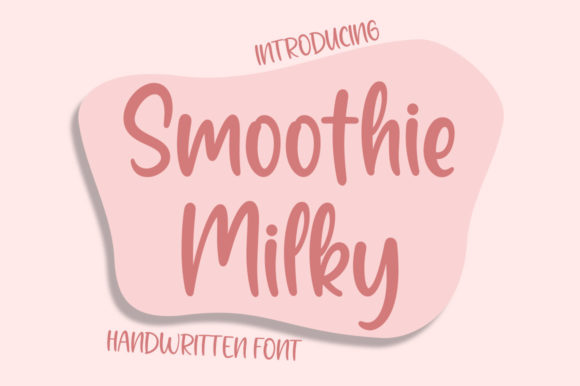
Welcome to the realm of Smoothie Milky Font, a delightful script font brimming with whimsical charm and undeniable visual appeal. Step into a world of creativity where letters dance with elegance, effortlessly elevating your designs to new heights of visual splendor.
Crafted with meticulous care by the visionary artists at Nirmala Creative, Smoothie Milky Font is a masterpiece of digital artistry. Its smooth curves and playful strokes evoke a sense of joy and exuberance, making it the perfect choice for adding a personal touch to your creative projects.
Whether you're crafting heartfelt invitations, expressing gratitude with thank-you cards, or sharing words of wisdom through captivating quotes, Smoothie Milky Font will transform your words into works of art. Its versatility extends to greeting cards, logos, business cards, and countless other design projects, bringing a touch of whimsy and sophistication to every creation.
With Smoothie Milky Font, you'll discover a world of endless possibilities. Its unique characteristics make it an ideal choice for display ads, where it commands attention with its captivating presence. Its ability to infuse life into any design makes it a must-have for designers seeking to create truly memorable impressions.
So, embark on a creative journey with Smoothie Milky Font and unlock the true potential of your designs. Let your imagination soar as you witness the transformative power of this remarkable font, turning ordinary words into extraordinary expressions. Embrace the magic of Smoothie Milky Font and elevate your design projects to new heights of visual excellence.